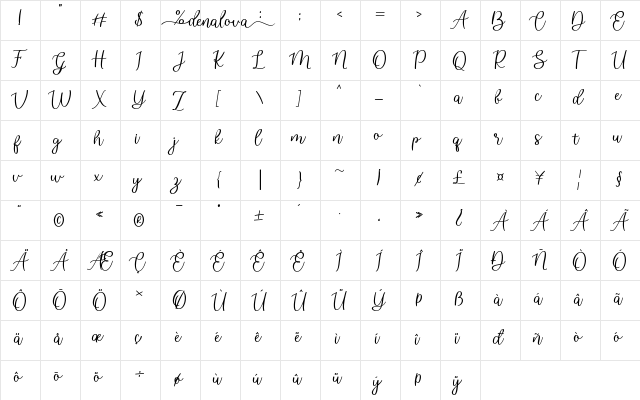
denalova Regular
| Designer | Abdul Malik Wisnu - Almarkha Type |
Design Context for denalova Typeface
denalova is a composed and adaptable typeface that performs quietly and consistently across a wide range of design contexts.